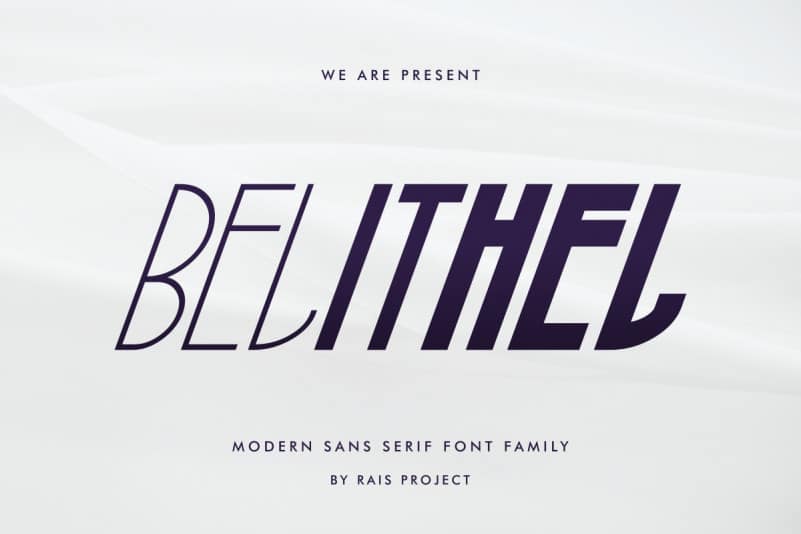
Belithel Font
Belithel Sans Serif Font
Belithel Sans Serif Font is remotely made by RaisProject team in Indonesia. The font was handcrafted for any your special projects including : headlines, promotion, events, branding, advertising, magazine, signage, invitation, stationery, social media posts, label, or and any projects that need unique strong style. The theme/industries of this font is Cosmetic, Beauty, Technology, Game, Magazine, Music, Sport etc
Belithel Sans Serif Font includes full set of gorgeous uppercase and lowercase letters ,numerals and Multi languages characters. In total, Belithel has SEVEN different styles : Reguler, Italic, Outline, Light, Light italic, Bold and Bold italic